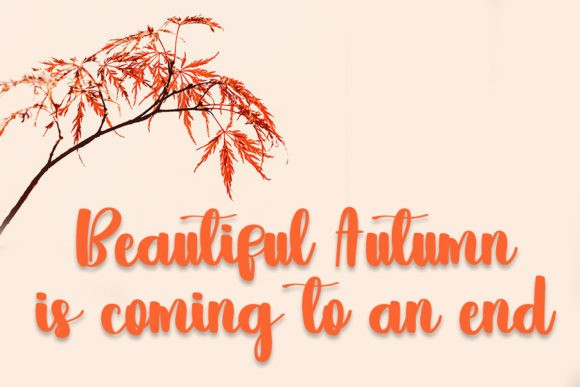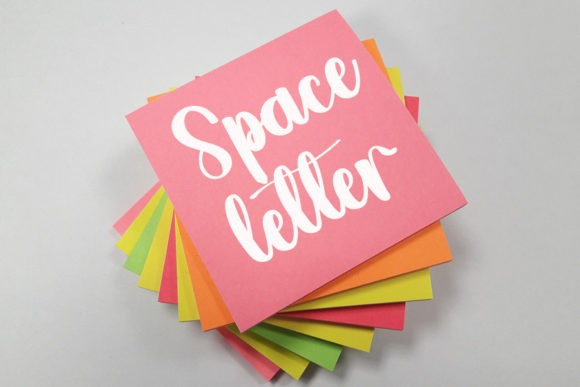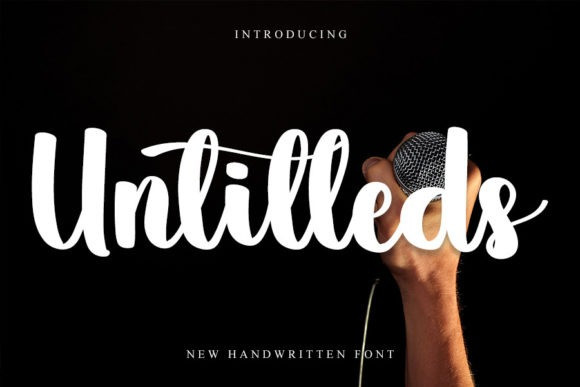
Untitleds Font
Untitleds Script Font is a well designed and personable script handwritten font that exudes trendiness and adaptability. This font was particularly crafted for those who need a chic and refreshing look to their designs.